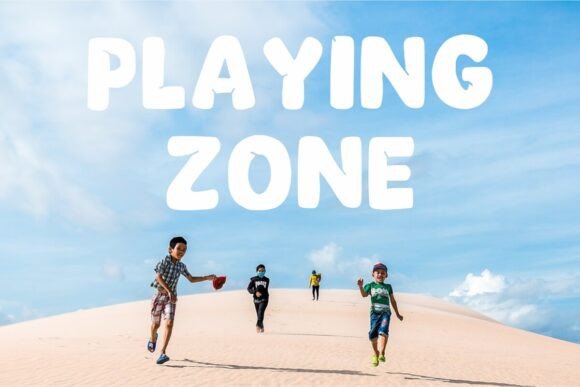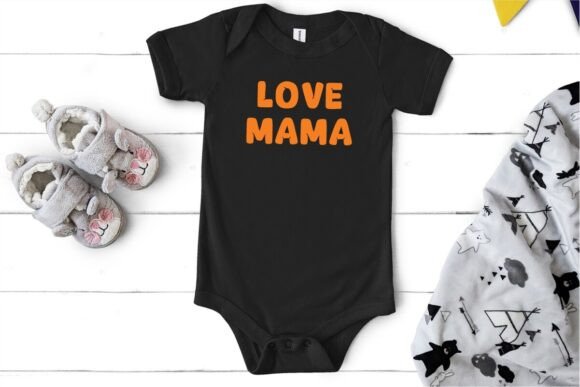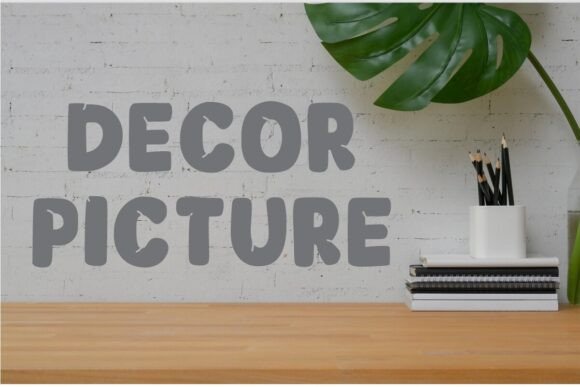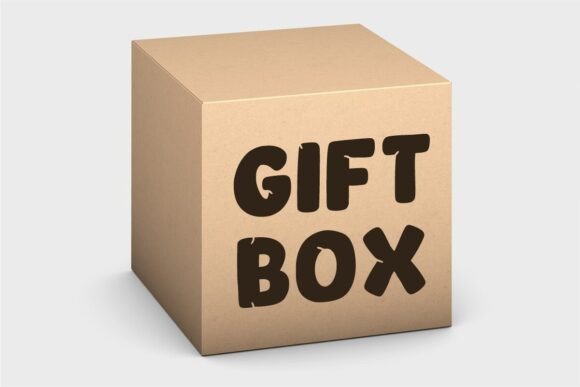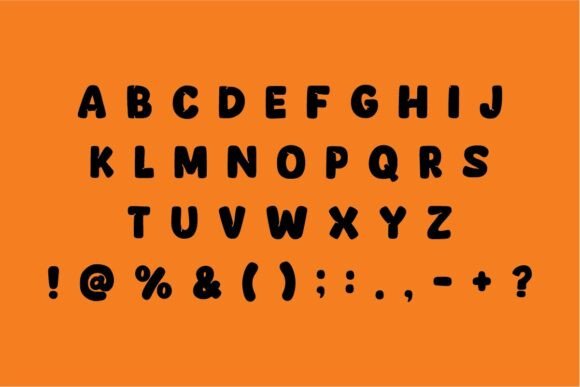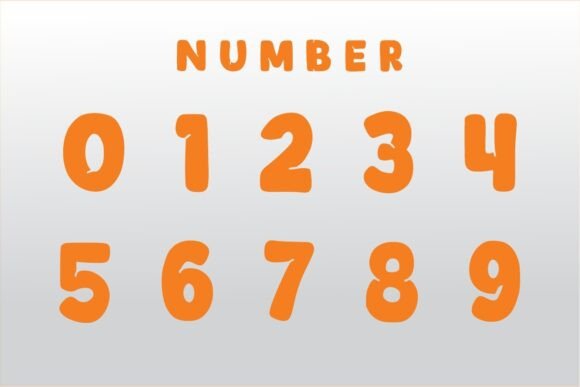
The Ultimate Font for Playful Designs: A Deep Dive into Giant Combat
I’ll never forget the time I was working on a design project for a kids’ birthday party, and I just couldn’t find the right font to capture that playful, youthful vibe. The client wanted something fun, energetic, and visually appealing, but everything I tried seemed either too boring or too over-the-top. That’s when I stumbled upon Giant Combat, and let me tell you, it was a game-changer! ✨
An Honest Review of Giant Combat
So, what makes Giant Combat so special? Here are a few things I love about this font:
- ✅ Perfect for kids’ designs: Giant Combat has a fun, childlike quality that’s perfect for designs aimed at kids or with a playful twist.
- ✨ Highly versatile: This font can be used for a wide range of projects, from t-shirts and tote bags to wedding invitations and logos.
- 🎨 Great for quotes and statements: The bold, chunky letters make it easy to create eye-catching quotes, statements, and headlines.
Of course, no font is perfect, and Giant Combat does have a few quirks:
- 🤔 Limited serif options: If you’re looking for a font with a lot of serif options, Giant Combat might not be the best choice.
- ⚠️ Not ideal for body text: Due to its bold, chunky design, Giant Combat is best used for headlines and short text snippets, rather than longer blocks of text.
The Backstory Behind Giant Combat
Giant Combat was designed with one goal in mind: to create a font that’s fun, playful, and perfect for kids’ designs. The designer wanted to create a font that would capture the energy and excitement of childhood, while still being versatile enough for a wide range of projects.
| Font Name | Giant Combat Font |
| Author | riki.studio |
Q: Is Giant Combat suitable for body text?
A: No, Giant Combat is best used for headlines, short text snippets, and titles. Its bold, chunky design makes it less suitable for longer blocks of text.
Q: Does Giant Combat support OpenType features?
A: Yes, Giant Combat supports OpenType features, including glyphs and stylistic alternates. This allows you to add more visual interest to your text and create unique designs.
Q: Is Giant Combat easy to read?
A: Yes, despite its bold, chunky design, Giant Combat is surprisingly easy to read, even at smaller sizes. This makes it perfect for designs where you want to make a statement without sacrificing legibility.